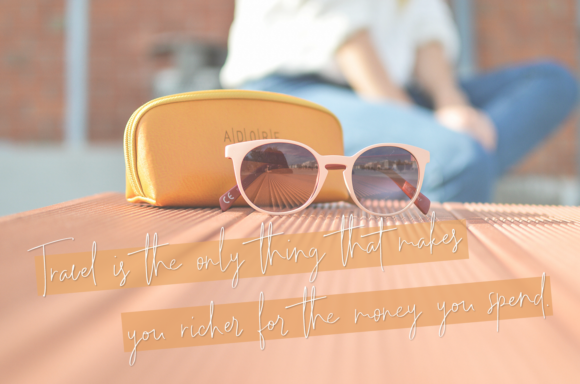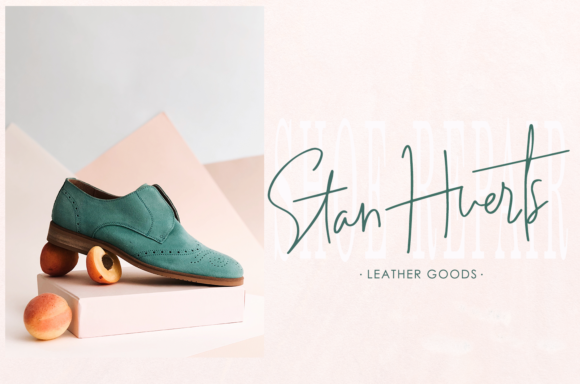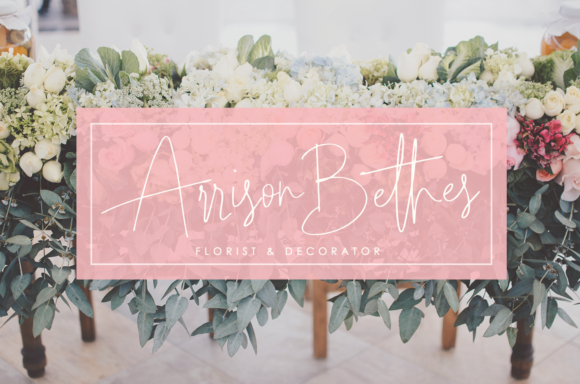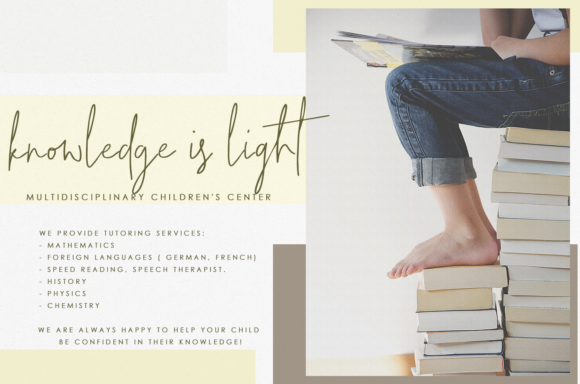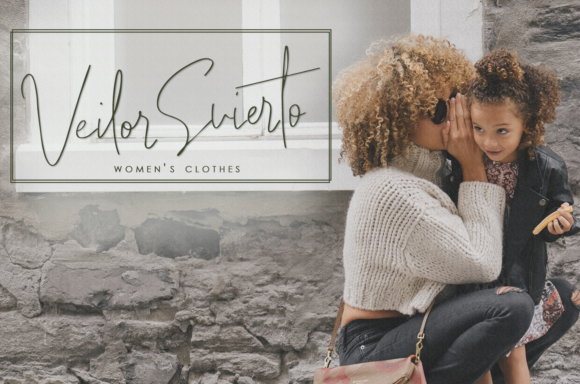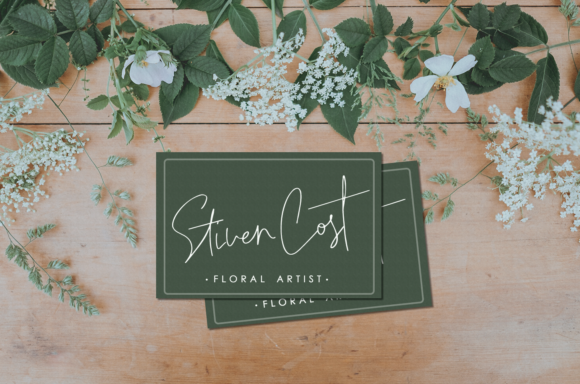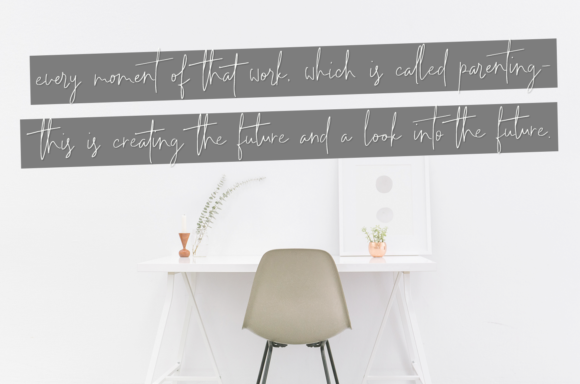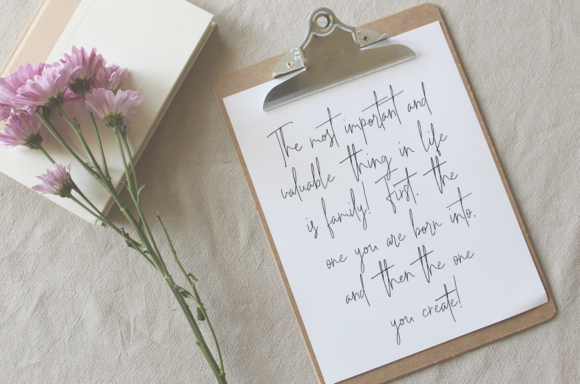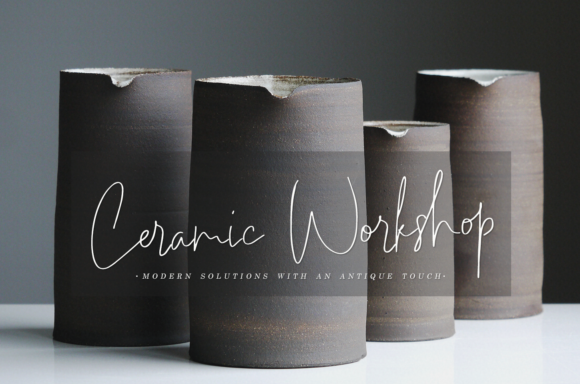
HomeScript FontsChild and Family Font Script Fonts Child and Family Font FacebookXPinterestWhatsApp Child and Family Font Poster 2 Child and Family Font Poster 3 Child and Family Font Poster 4 Child and Family Font Poster 5 Child and Family Font Poster 6 Child and Family Font Poster 7 Child and Family Font Poster 8 Child and Family Font Poster 9 Child and Family Font Poster 10 About Child and Family Font Child and Family is light and thin signature font full of charm. Get inspired by its unique feel! DOWNLOAD ON CREATIVE FABRICAThis font is sold and delivered by Creative Fabrica. Font Canyon may earn a commission if you buy through this link. People also explored Food Delight Font Leticia Font Melissa Monogram Font Vis Nova Font Princess BTN Alladhina Font Benedicta Font Black Hawk Font Au Revoir 349 0 TagsChild and Family Font Previous articleSunny November FontNext articleLisalovely Font LEAVE A REPLY Cancel reply Comment: Please enter your comment! Name:* Please enter your name here Email:* You have entered an incorrect email address! Please enter your email address here Website: Save my name, email, and website in this browser for the next time I comment. Personal Use Free Hatia Script Personal Use Free Read more about this font Elevate Your Halloween Designs with 500 Free High-Quality PNG Clipart Files Personal Use Free Read more about this font BD Geminis Personal Use Free Read more about this font Bulky Personal Use Free Read more about this font BLOG Best Fonts for YouTube Videos: Make Your Thumbnails Stand Out Best Fonts for YouTube Videos: Make Your Thumbnails Stand Out Choosing the right font can make a massive difference in how your YouTube videos perform.... The 10 Best Handwriting Fonts to Add Personality to Your Designs Using Fonts in Digital Marketing: Tips to Strengthen Your Brand Identity Free Fonts Risk: Why Free Fonts Can Be Dangerous for Designers